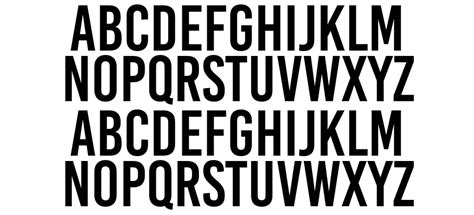
Bebas Kai Font. Web explore bebas kai designed by ryoichi tsunekawa at adobe fonts. You can use this font for commercial purpose for free.
Web explore bebas kai designed by ryoichi tsunekawa at adobe fonts. You can use this font for commercial purpose for free. Web bebas kai is free font. A sans serif typeface with 1 style, available from. You can use this font for commercial purpose without.
You can use this font for commercial purpose without. Web bebas kai is free font. You can use this font for commercial purpose for free. A sans serif typeface with 1 style, available from. Web explore bebas kai designed by ryoichi tsunekawa at adobe fonts.